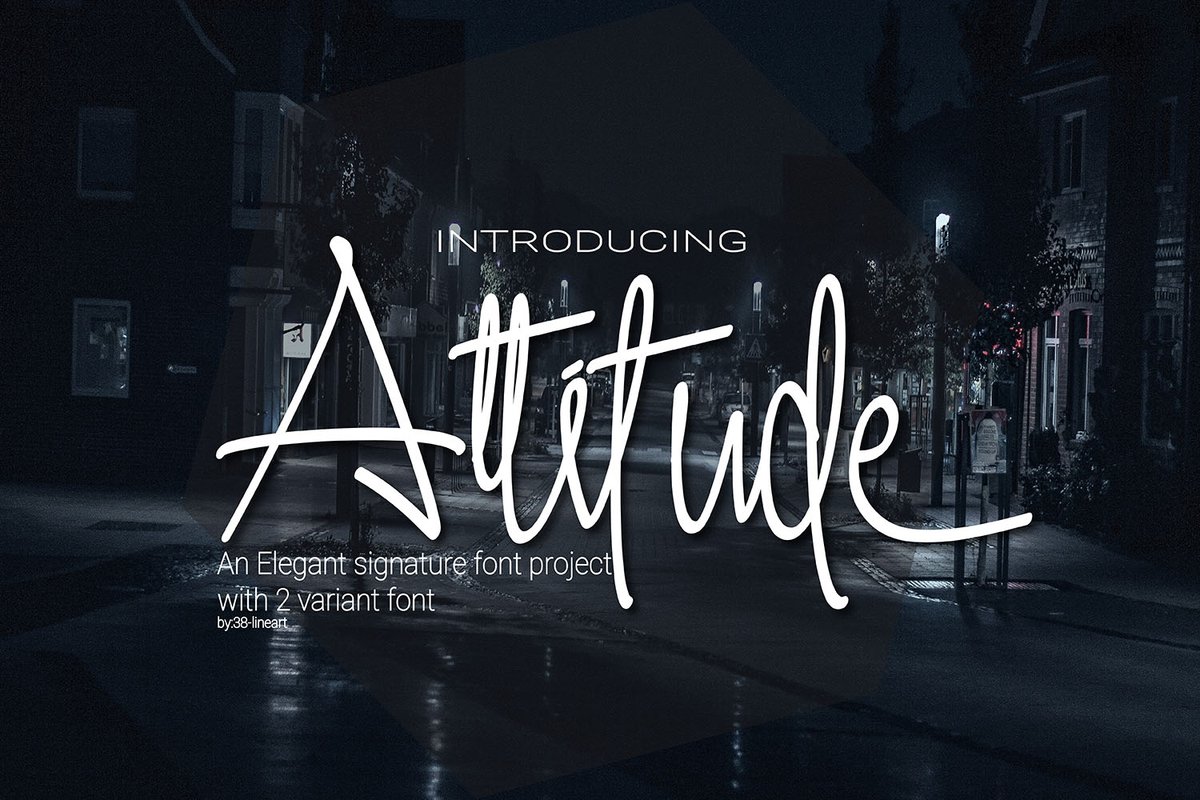
When Words Speak Volumes
Have you ever been brainstorming a new design project and suddenly, the perfect font pops into your mind? For many designers, this moment of clarity is the spark that sets their creativity ablaze. For us, that spark was ignited by the Attitude Font – a beautiful, elegant script font that adds a touch of handwritten charm to any design.
Whether you’re crafting a modern website, a hipster-inspired poster, or a luxurious invitation, the Attitude Font is the perfect choice. Its flexibility and sophistication make it a valuable asset in any designer’s toolkit. By incorporating the Attitude Font into your designs, you can instantly elevate your aesthetic and communicate your message with style and poise.
Key Features of Attitude Font
- Unique Characteristics: Attitude Font is known for its bold, edgy, and modern design, making it perfect for use in headings, titles, and other text elements that require a strong visual impact.
- Legibility: Despite its bold design, Attitude Font is highly legible, ensuring that the text remains clear and easy to read, even at smaller font sizes.
- Customization: Attitude Font offers a range of customization options, including color, size, and style, allowing users to tailor the font to their specific design needs.
Attitude Font Review
Overall, I’d say the Attitude Font is a decent choice for projects that need a bold and edgy look ✨. The font’s unique, angular design effectively conveys a sense of confidence and attitude, making it suitable for headings, titles, and even some body text.
- Effective for titles and headings ✨, as it grabs the reader’s attention
- Unique and edgy design ✨, great for projects that need a bold statement
- Available in multiple weights and styles ✨, offering flexibility in its usage
- Difficult to read in smaller sizes ⚠️, as the font’s bold lines can become distracting
- Not suitable for large blocks of text ⚠️, as the font’s angular design can be fatiguing to read
Overall, I’d recommend the Attitude Font for projects that need a bold, attention-grabbing look. However, be mindful of its limitations and use it judiciously to avoid readability issues.
To get the most out of Attitude Font, use it in bold, eye-catching headings and titles to draw attention to important information.
Use it in combination with other fonts to create a unique and visually appealing design.
Experiment with different font sizes, colors, and styling options to achieve the desired look.
Attitude Font is commonly used in:
Social media graphics and advertisements
Marketing materials and brochures
Web design and landing pages
Fashion and beauty branding and advertising
Alternatives to Attitude Font
Great Vibes Font is a modern script font that can be used for headings and titles. It’s perfect for creating a friendly and approachable atmosphere in your designs. When to use: For casual, creative, and emotive projects.
Comparison to Attitude Font: Great Vibes Font has a more relaxed feel compared to Attitude Font, which is bolder and edgier. Great Vibes Font is ideal for designs that require a softer, more approachable tone.